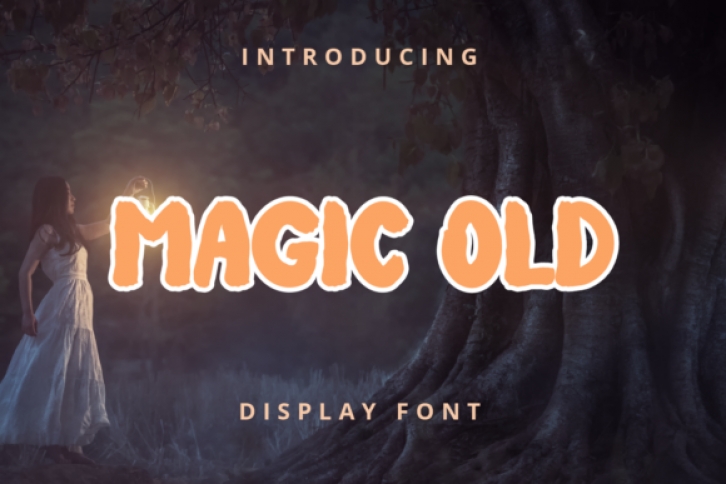
Magic Old is a playful and thick lettered display font. Whimsical and a bit quirky, this font will brighten up each of your designs. Add it confidently to your projects, and you will love the results.